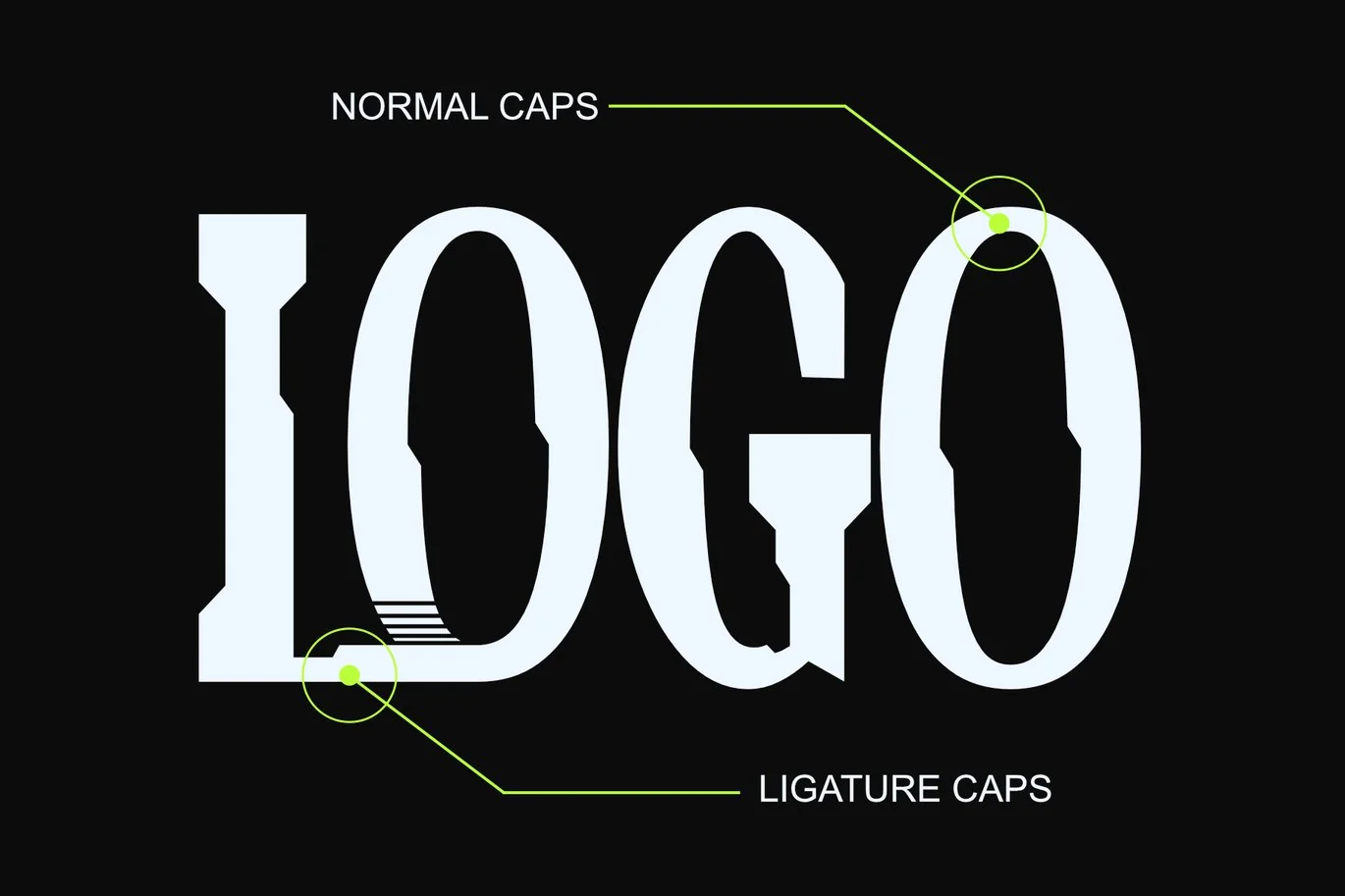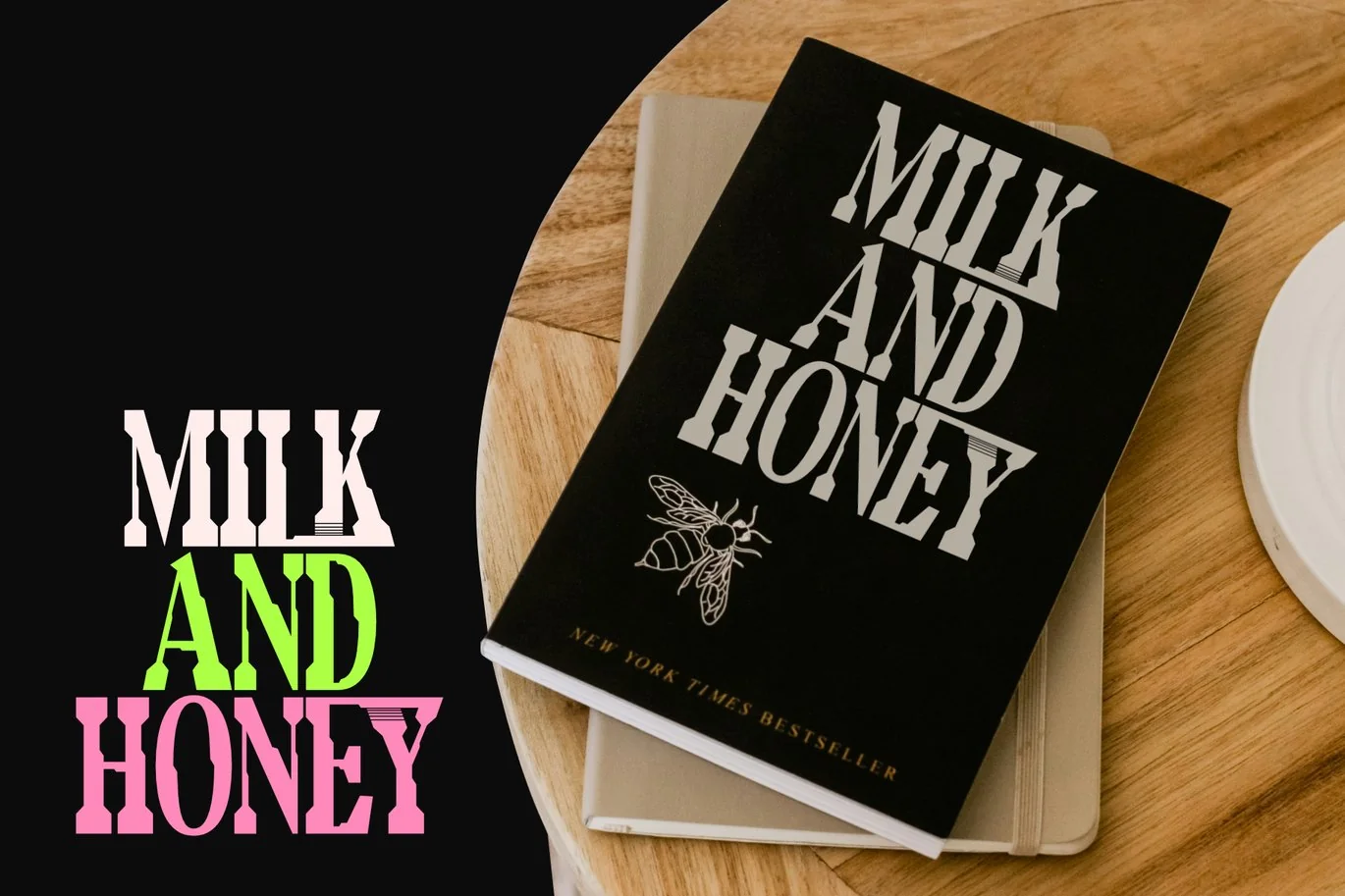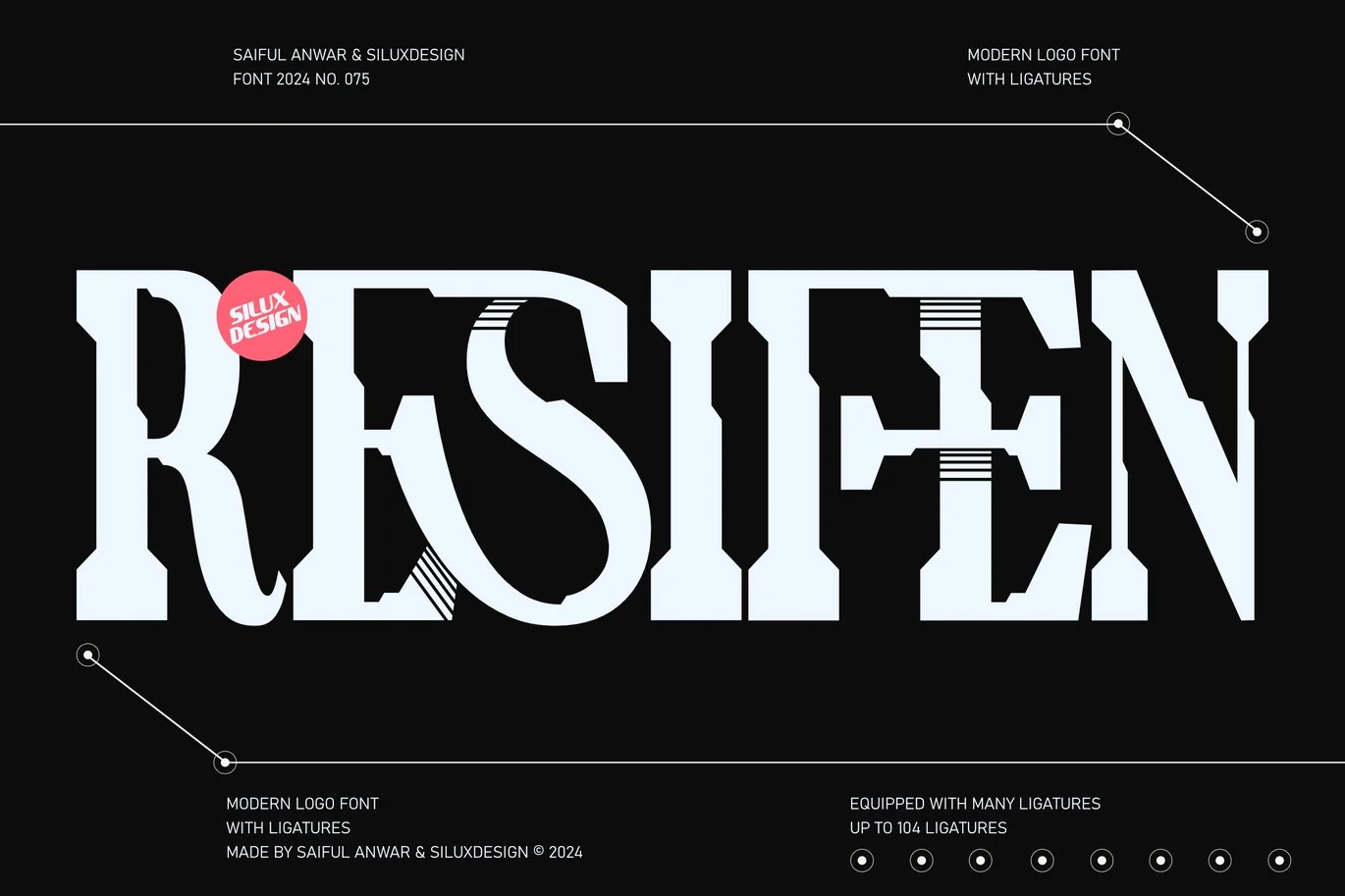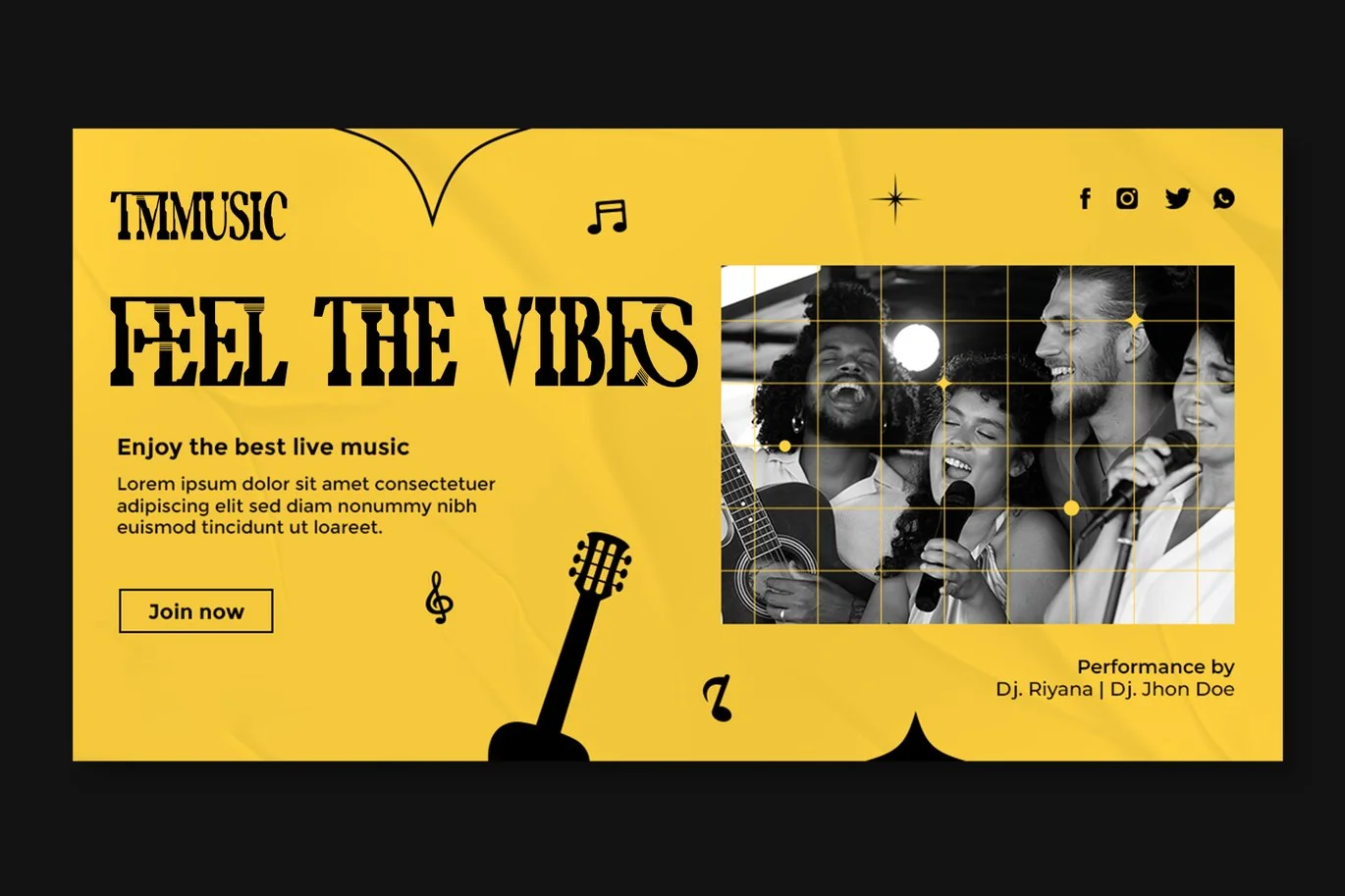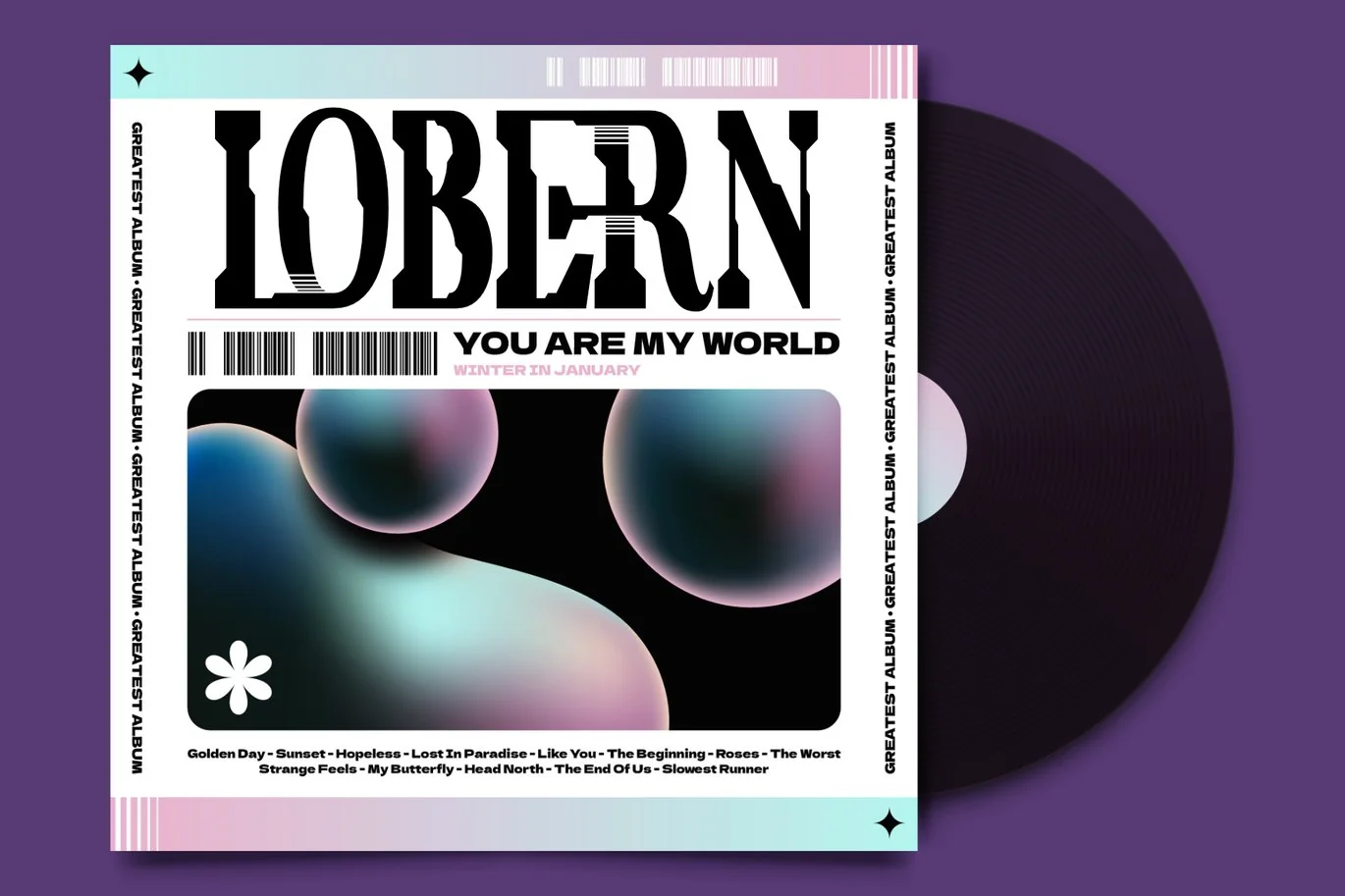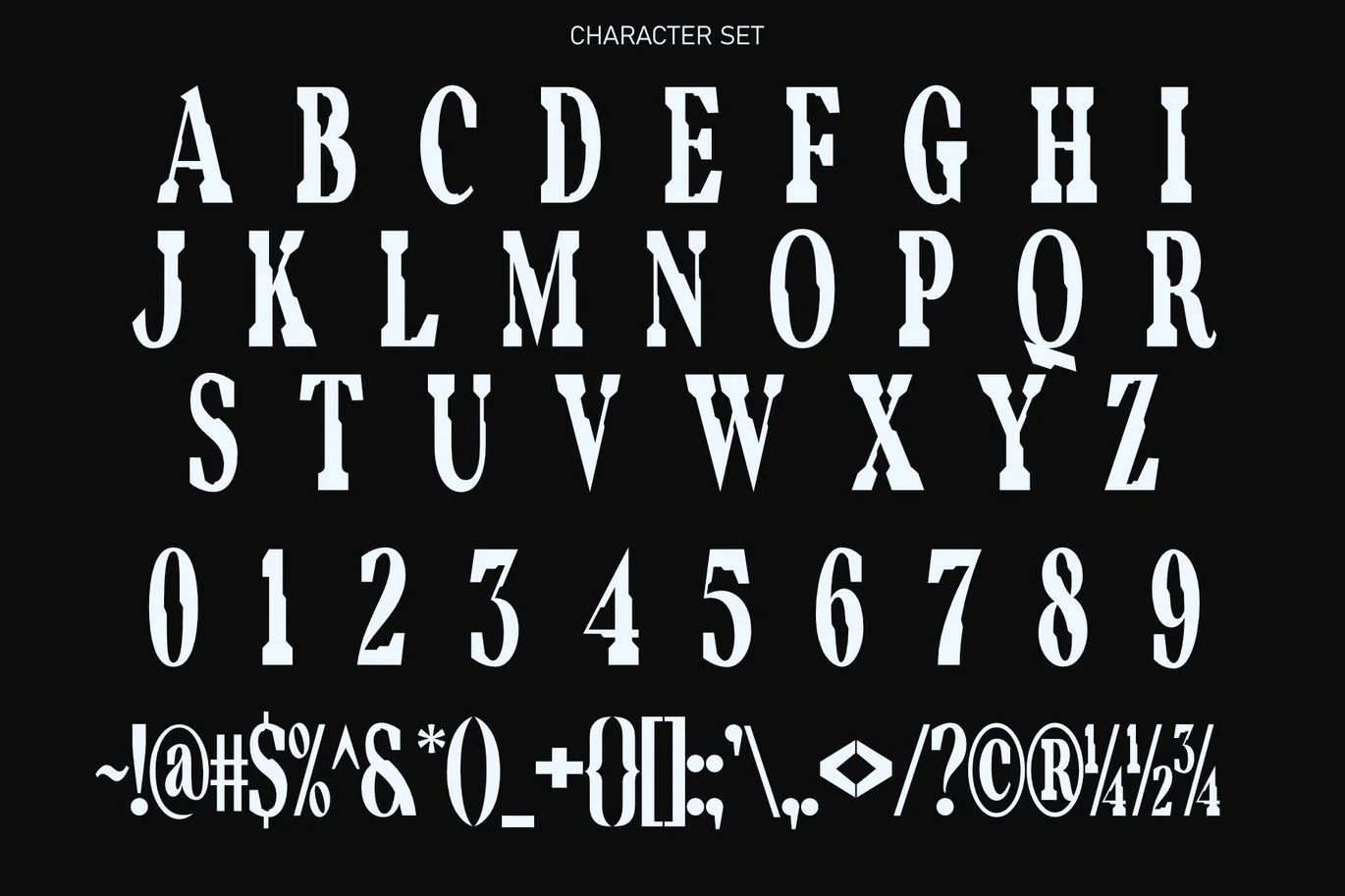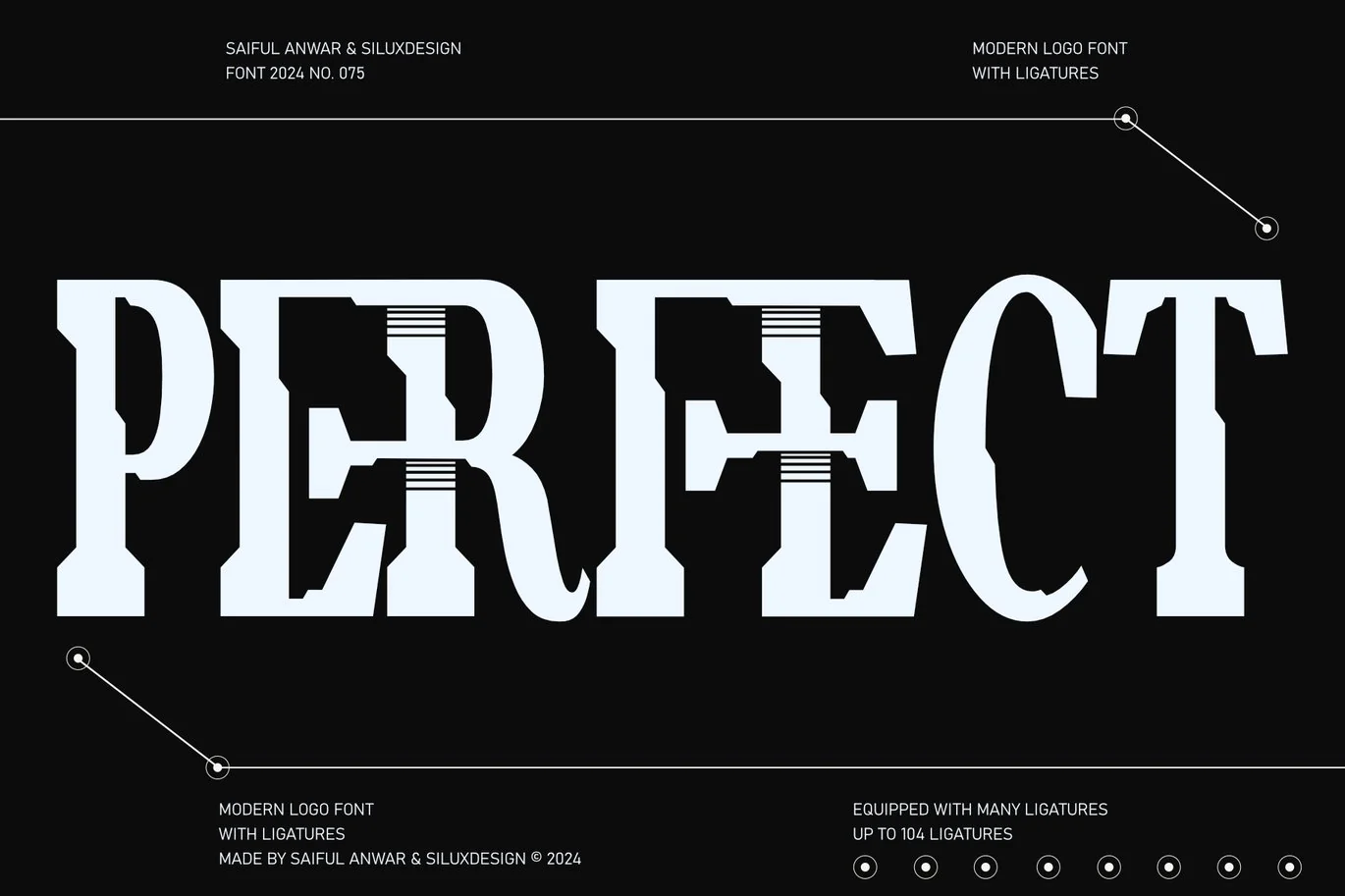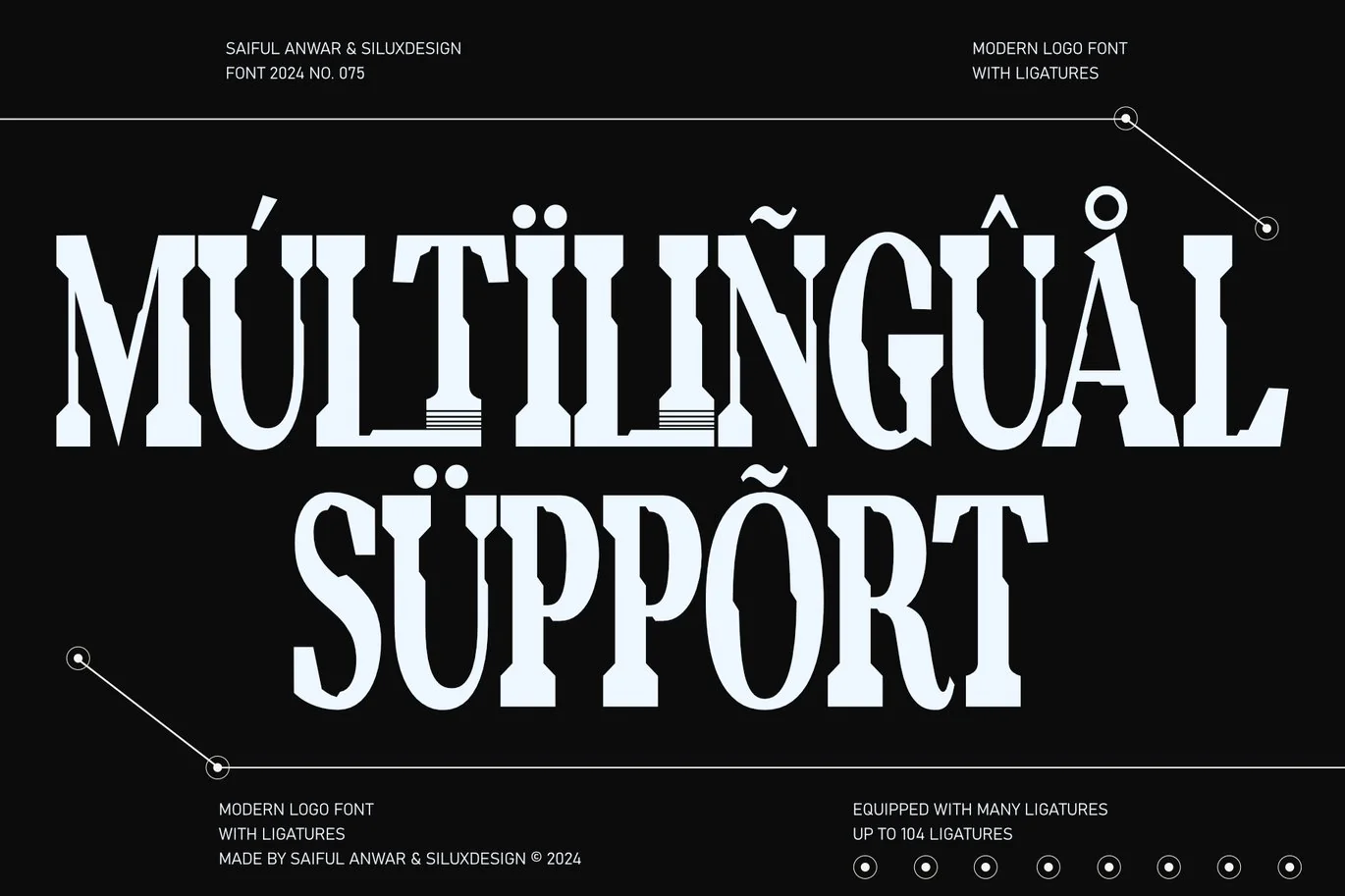
Resifen|Modern Logo Font
Introducing Resifen, a modern logo font that redefines typographic excellence. With its sleek design, Resifen epitomizes elegance and functionality, complemented by a wide array of meticulously crafted ligatures.
Resifen’s modern logo style is expertly crafted to optimize space while maintaining legibility. Whether for logos, headlines, packaging, or web designs, this font’s compact structure ensures a visually striking impact that demands attention.
What sets Resifen apart is its extensive collection of expertly designed ligatures. These ligatures allow for seamless connections between characters, infusing your typography with fluidity and artistry. They add sophistication, elevating your designs and captivating viewers with their visual allure.
Resifen is a versatile font suitable for various design applications, including logo creation, branding materials, advertising campaigns, and digital interfaces. Its modern logo style exudes professionalism and contemporary aesthetics, making it ideal for projects requiring a refined and sleek visual identity.
Whether aiming for a minimalistic, high-tech, or cutting-edge look, Resifen provides the perfect canvas for your creativity. Its modern style, combined with its plethora of ligatures, empowers you to create captivating and memorable designs that stand out.
In summary, Resifen is an exceptional modern logo font that blends functionality, elegance, and a wealth of ligatures. Unlock the full potential of your typographic endeavors with Resifen—a font that seamlessly merges form and function, enabling you to craft visually stunning and harmonious designs.
Resifen features:
- Full set of uppercase letters
- Numbers and punctuation
- Multilingual language support
- Modern logo style
- Over 337 glyphs
- 104 ligatures